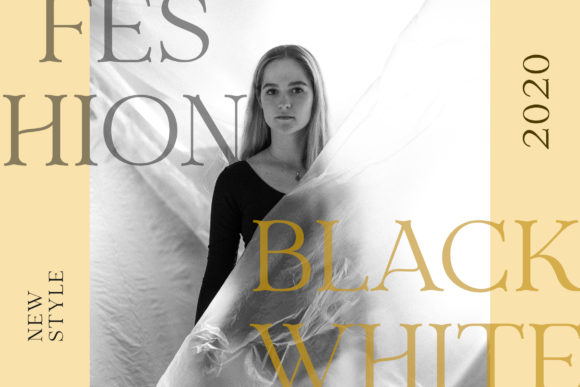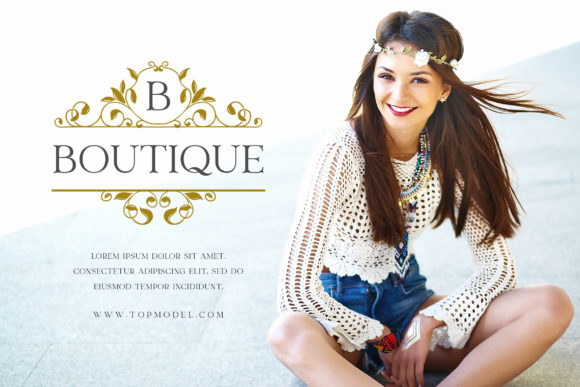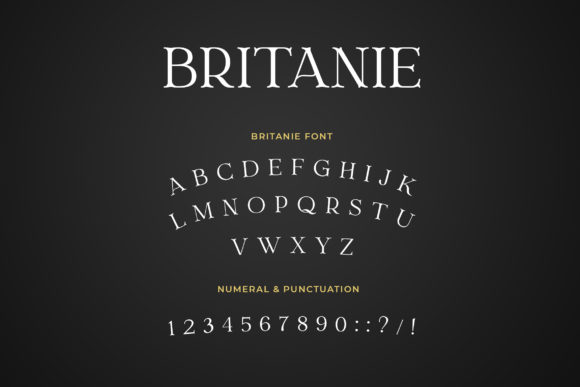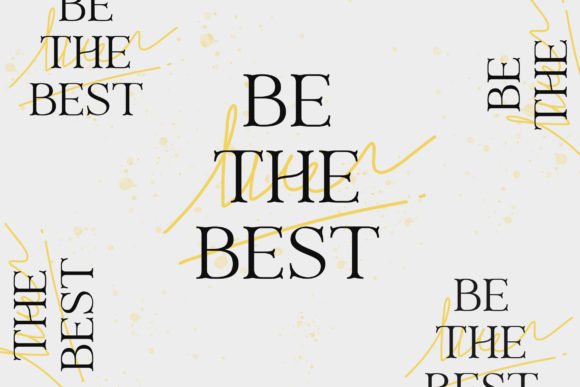
Discover the Elegance of Britanie Font: Elevate Your Designs with Versatility and Style
In the world of typography, few fonts manage to capture the essence of elegance and versatility as effectively as the Britanie Font. This beautiful serif font has been making waves among designers and crafters alike, and for good reason. With its incredibly versatile style, Britanie Font is perfect for creating a wide range of projects, from gorgeous wedding invitations and beautiful stationery art to eye-catching social media posts and much more.
The Characteristics of Britanie Font
So, what makes Britanie Font so special? For starters, its serif design gives it a classic and sophisticated look that is instantly recognizable. The font’s lines are clean and precise, making it highly legible even at smaller sizes. This makes it an excellent choice for body text, as well as for headlines and titles where you want to make a statement.
Another key feature of Britanie Font is its versatility. Whether you’re looking to create something traditional and formal or modern and playful, this font adapts beautifully to any design aesthetic. Its range of weights and styles means you can use it for a variety of applications, from elegant wedding stationery to bold social media graphics.
Uses for Britanie Font
The possibilities are endless when it comes to using Britanie Font in your designs. Here are just a few ideas to get you started:
- Wedding Invitations: Create stunning wedding invitations that set the tone for the big day. Britanie Font’s elegant style makes it perfect for formal wedding stationery.
- Stationery Art: Add a touch of sophistication to your stationery with Britanie Font. It’s ideal for creating beautiful notecards, journals, and other paper goods.
- Social Media Posts: Stand out on social media with eye-catching graphics featuring Britanie Font. Its clean lines and classic style make it perfect for creating engaging posts that grab attention.
- Branding and Packaging: Use Britanie Font to elevate your brand’s visual identity. Its versatility makes it suitable for a wide range of industries, from luxury fashion to gourmet food.
Tips for Working with Britanie Font
To get the most out of Britanie Font, here are a few tips to keep in mind:
- Experiment with Weights and Styles: Don’t be afraid to try out different weights and styles of Britanie Font to find the one that works best for your project.
- Pair it with Other Fonts: Britanie Font pairs beautifully with a range of other fonts. Try combining it with a sans-serif font for a modern look or with another serif font for a more traditional feel.
- Pay Attention to Kerning: As with any font, kerning is important to ensure your text looks professional and polished. Take the time to adjust the kerning to get it just right.
In conclusion, Britanie Font is a beautiful and versatile serif font that is sure to become a staple in any designer’s toolkit. Its elegant style, range of weights and styles, and high legibility make it perfect for a wide range of applications. Whether you’re creating wedding invitations, stationery art, social media posts, or anything in between, Britanie Font is sure to elevate your designs and help you achieve professional-looking results. So why not give it a try and see for yourself just how amazing it is?
With Britanie Font, the possibilities are endless. Its incredible versatility and style make it an excellent addition to any design project. So fall in love with its beauty and start creating stunning designs that are sure to impress.